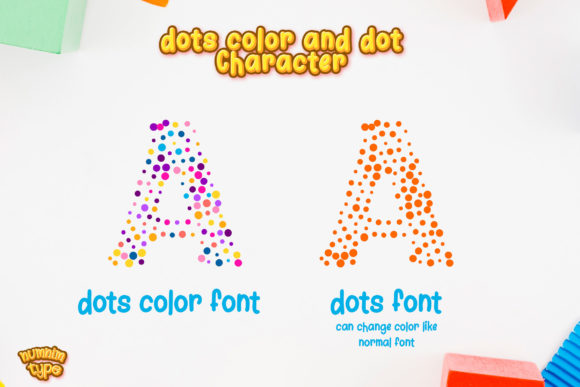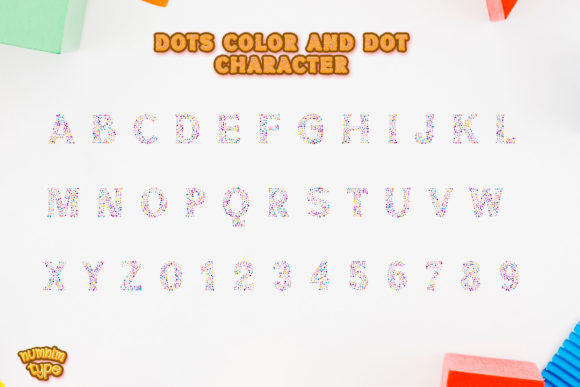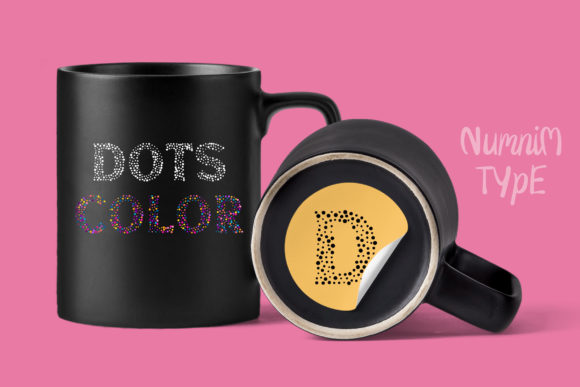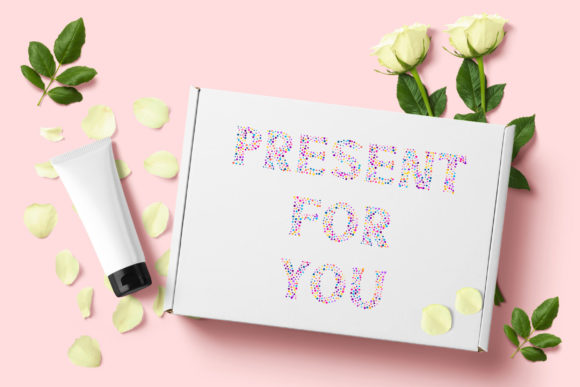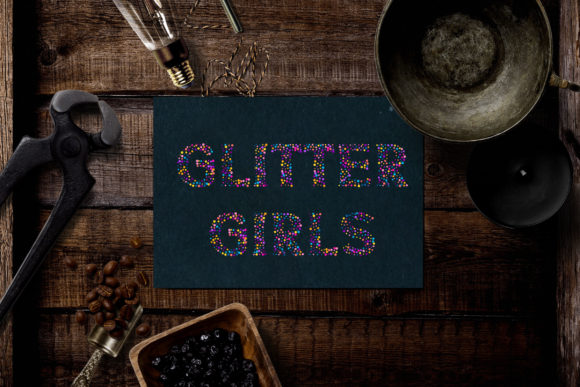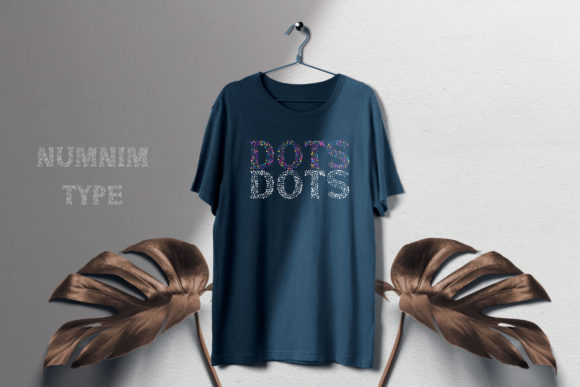
Dots Font: The Ultimate Decorative Font for Crafty Designs
Are you tired of using the same old fonts for your designs? Look no further than Dots Font, a cool and fun decorative font that’s sure to add a touch of whimsy to your crafty projects. As a designer or crafter, you’re always on the lookout for unique and creative ways to make your designs stand out, and Dots Font is the perfect solution.
What is Dots Font?
Dots Font is a decorative font that features characters made out entirely of small circles. This original look is sure to appeal to a wide range of crafty ideas, from letterheads and titles to stationery and more. The font is made up of tiny dots that are carefully arranged to form each character, creating a unique and eye-catching effect.
Features of Dots Font
Dots Font has a number of features that make it the perfect choice for crafty designs. Some of the key features include:
- Unique and original design: Dots Font features a one-of-a-kind design that’s sure to make your designs stand out.
- Crafty and playful look: The font’s playful, crafty look is perfect for a wide range of design projects, from stationery to titles and more.
- High-quality design: The font is carefully crafted to ensure that it looks great in a variety of sizes and applications.
Uses for Dots Font
Dots Font is a versatile font that can be used for a wide range of design projects. Some of the most popular uses for the font include:
- Stationery and invitations: Dots Font is perfect for creating custom stationery, invitations, and other paper goods.
- Titles and headings: The font’s bold, playful design makes it a great choice for titles and headings.
- Letterheads and logos: Dots Font can be used to create custom letterheads and logos that are sure to make your business stand out.
- Crafting and DIY projects: The font’s crafty look makes it a great choice for a wide range of crafting and DIY projects, from scrapbooking to card making.
- Experiment with different sizes: Dots Font looks great in a variety of sizes, so don’t be afraid to experiment to find the perfect size for your project.
- Pair with other fonts: Dots Font pairs well with a wide range of other fonts, so try pairing it with a bold font for a striking contrast.
- Use for emphasis: The font’s bold design makes it a great choice for emphasizing important information, such as headings and titles.
Dots Font is a unique and versatile font that’s perfect for crafty designs. With its bold, playful design and easy-to-use format, it’s a great choice for designers and crafters of all levels. Whether you’re creating custom stationery, titles and headings, or crafting and DIY projects, Dots Font is sure to add a touch of whimsy and creativity to your designs.